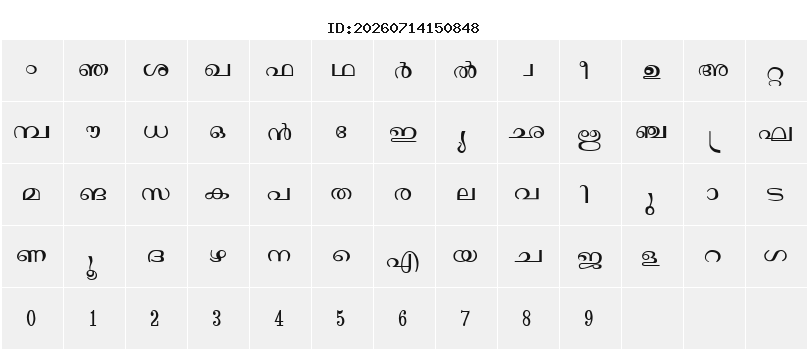
Janaranjani Preview
• Font Name: Janaranjani
• Font ID: Altsys Fontographer 3.5 Janaranjani Regular
• Full Font Name: Janaranjani Regular
• Version: Altsys Fontographer 3.5 5/8/93
• PostScript Name: Janaranjani Regular
• Character Count: 108
About Janaranjani.ttf
Janaranjani.ttf is a modern, elegant sans-serif font designed for ultimate readability and visual harmony. Perfect for branding, headlines, web design, and print materials.